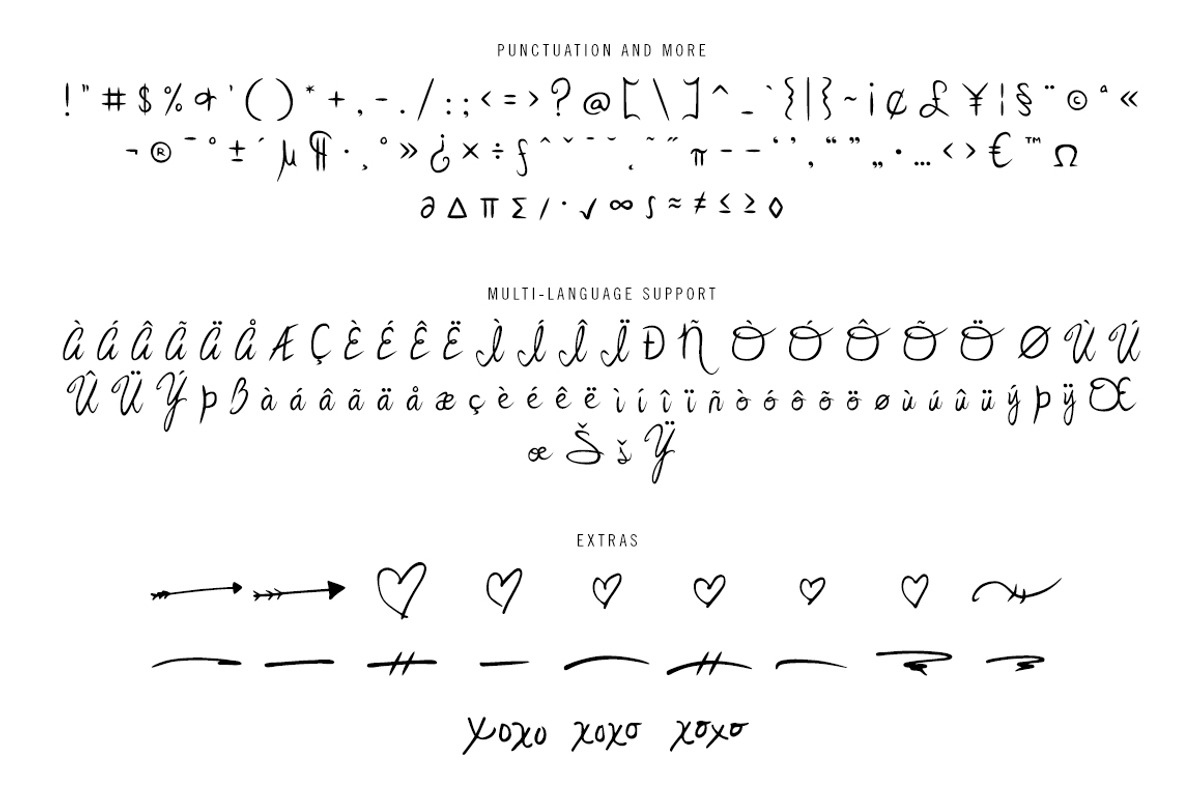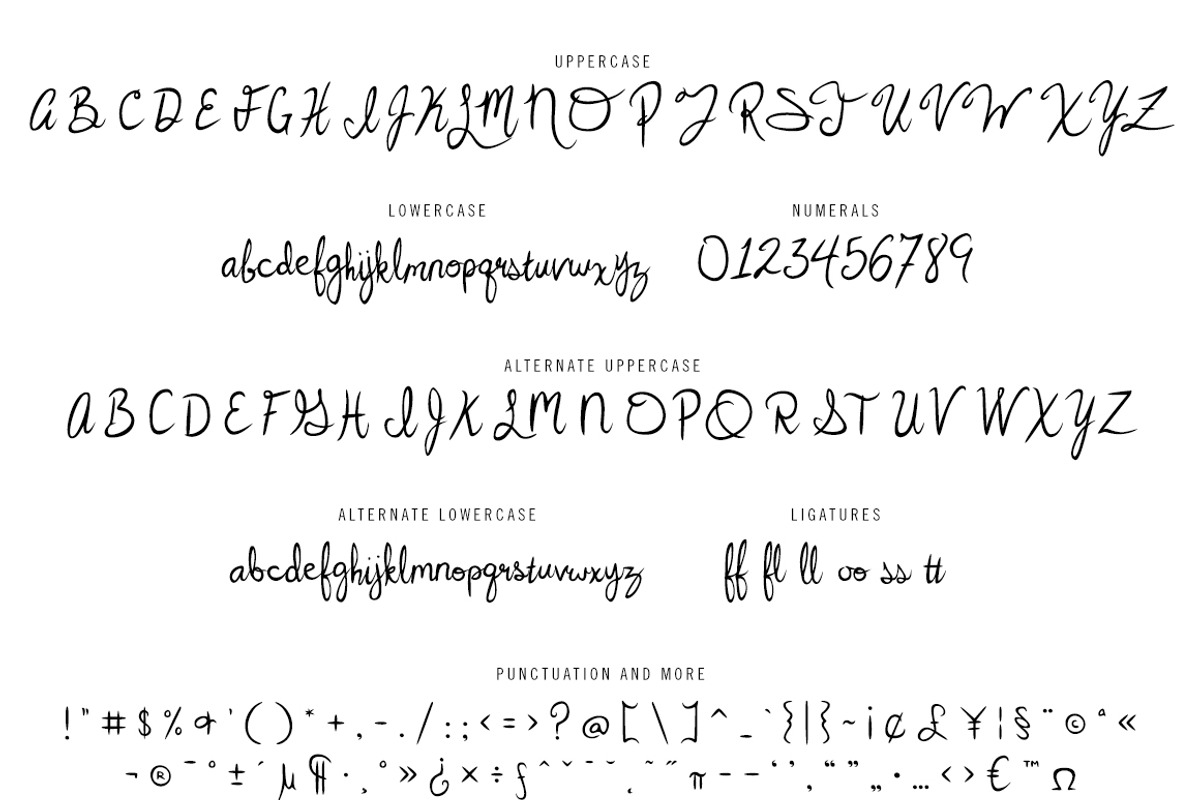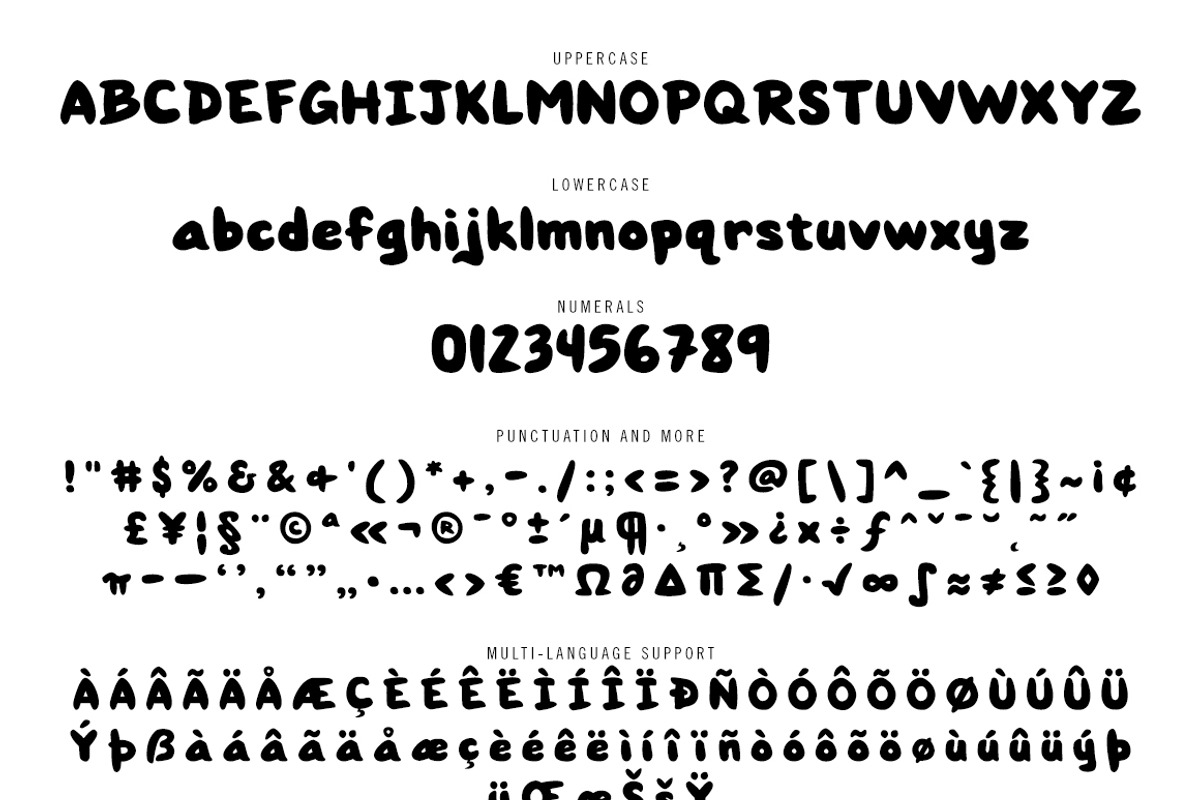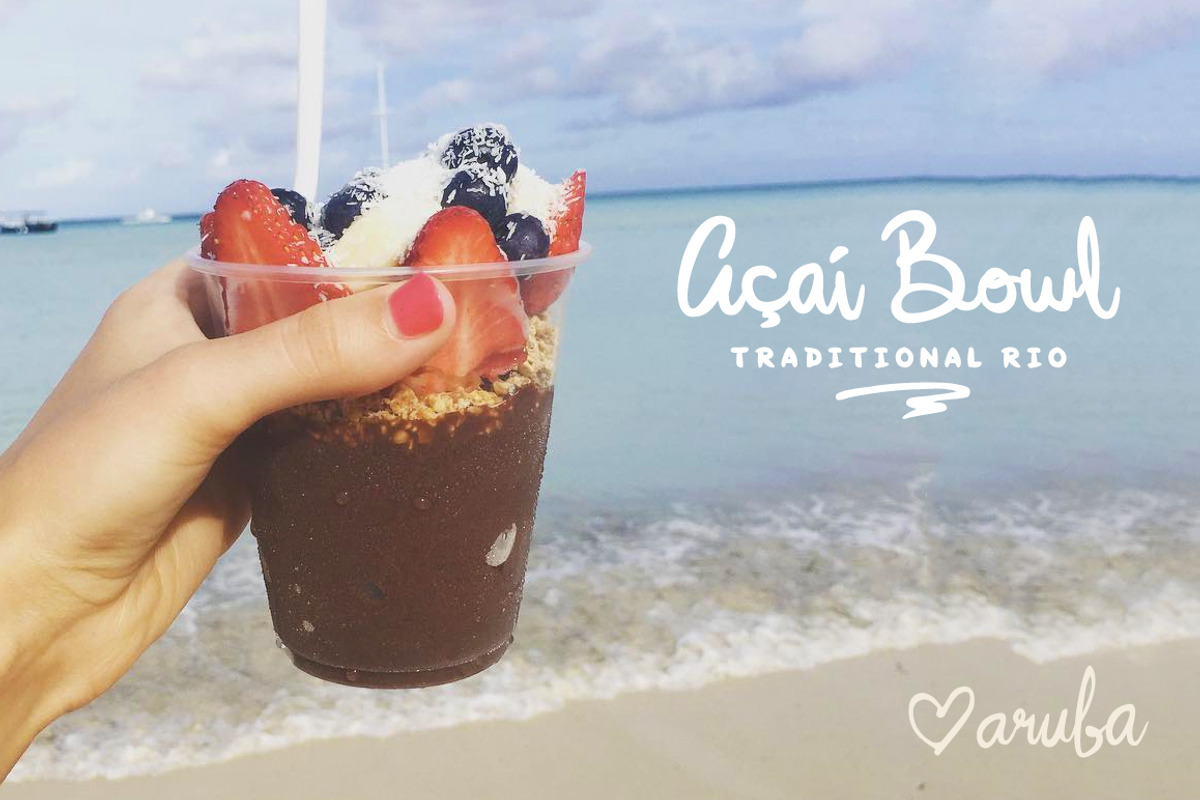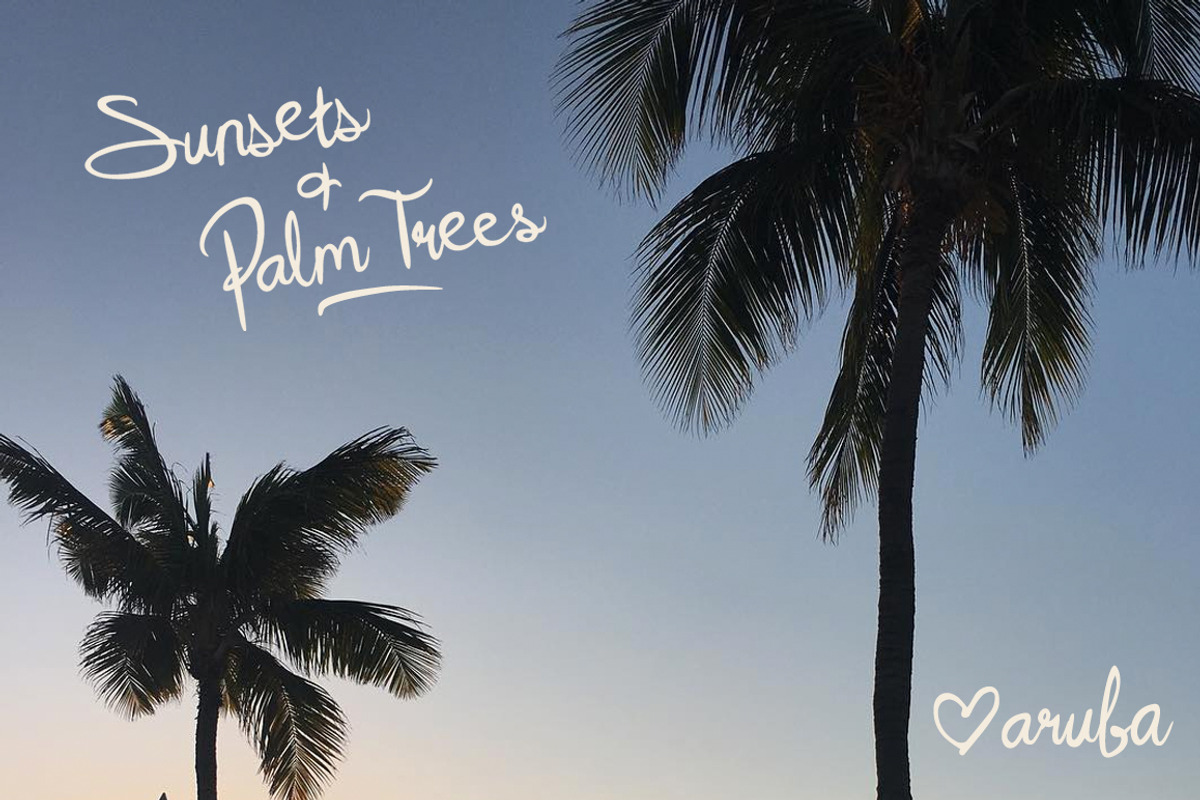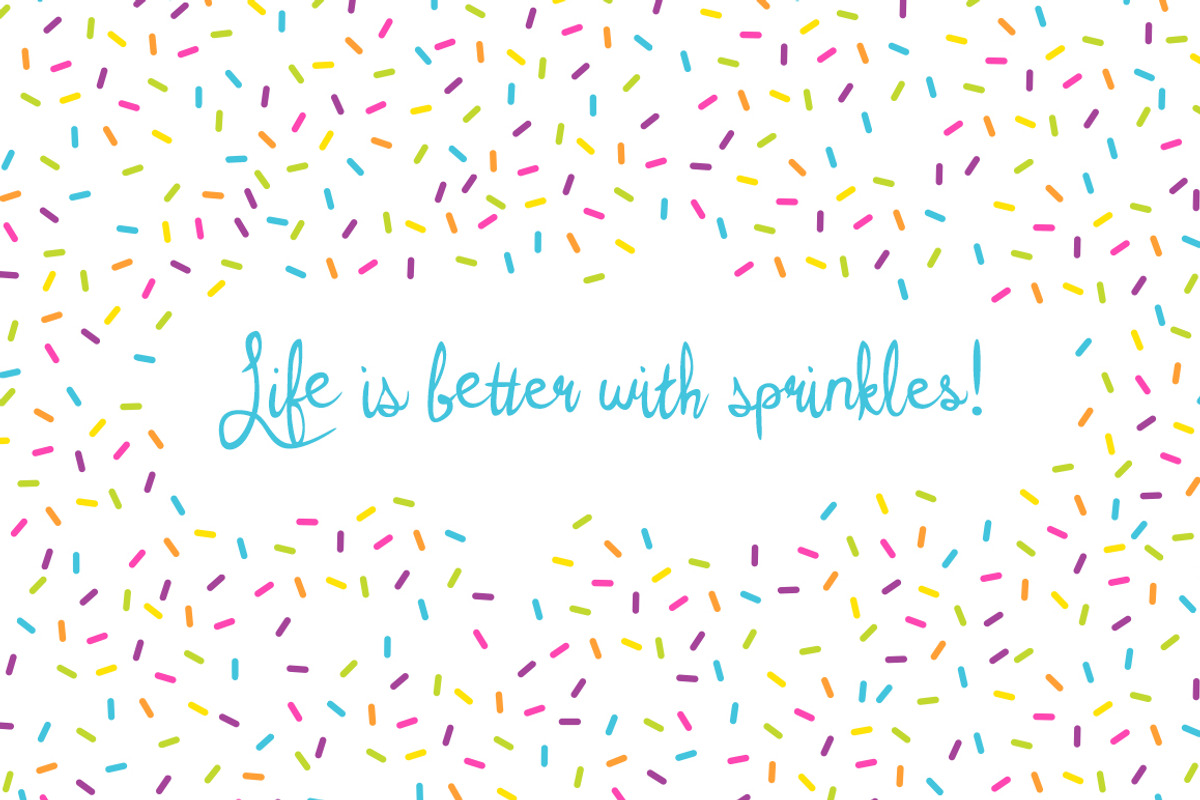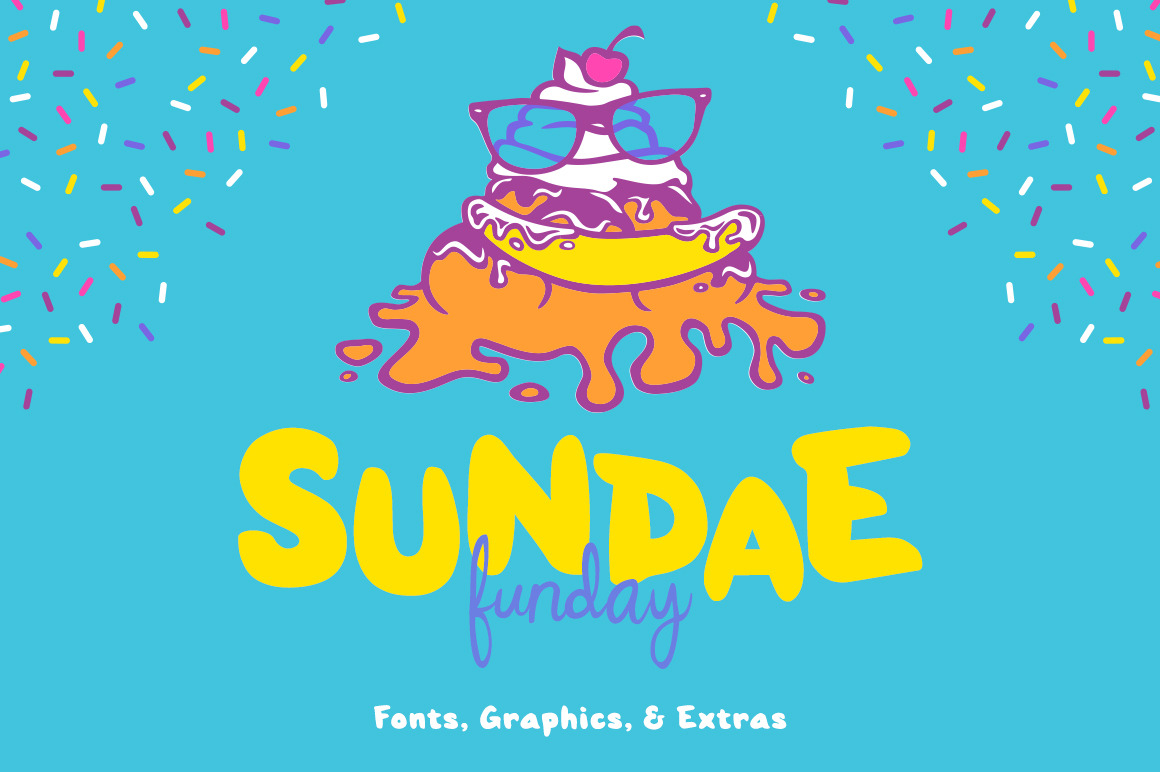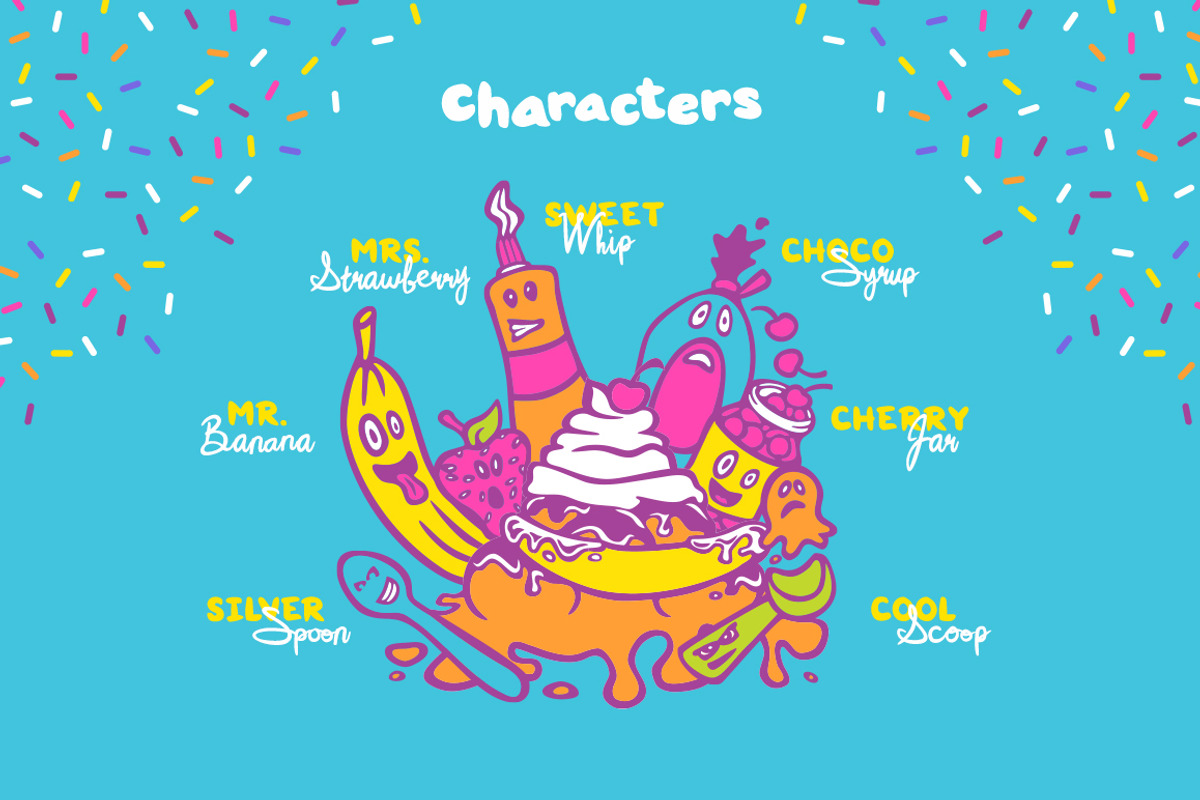
Sundae Funday Fonts & Graphics
The Sundae Funday pack makes it easy to create fun designs quickly! The pack contains a fresh and playful font duo. It also contains ice cream vector illustrations because who doesn't love ice cream?! These illustrations can add a lot of character to any design quickly.
The fonts and illustrations are perfect for posters, packaging, merchandise, social media posts, and greeting cards (especially birthday cards!).
Sundae Funday Script - includes, two sets of uppercase and lowercase letters, ligatures, international support, punctuation, and a wide variety of extra characters.
Sundae Funday Script Bold - includes, two sets of uppercase and lowercase letters, ligatures, international support, punctuation, and a wide variety of extra characters.
Sundae Funday Display - full set of uppercase and lowercase letters, international support, punctuation, and a wide variety of extra characters.
Sundae Funday Decorative - includes hand drawn arrows, hearts, "xoxo", and swashes